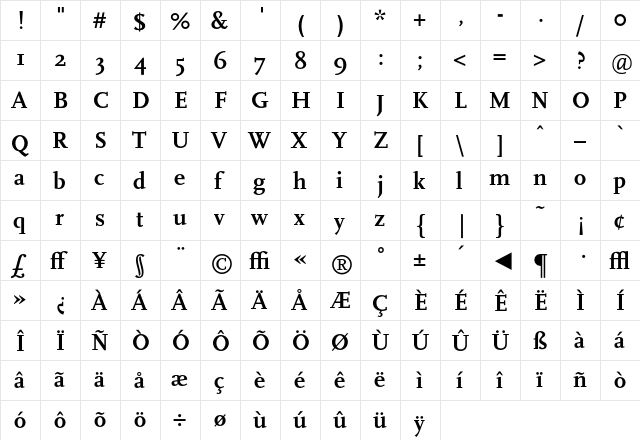
Scala Bold
Design Context for Scala Typeface
Scala takes a measured approach to typography — its balanced proportions and neutral character make it a reliable workhorse for both digital and print work. Its bold stroke weight gives it real presence on the page.